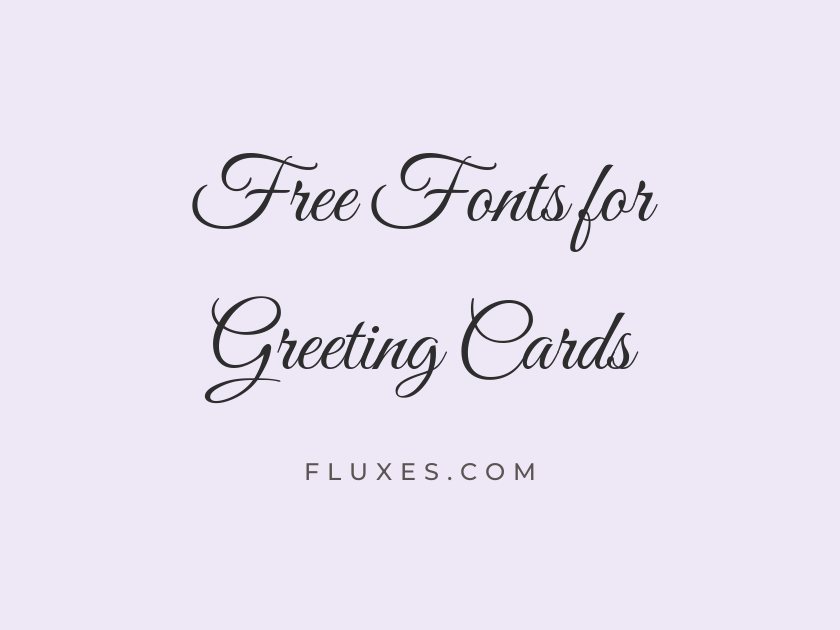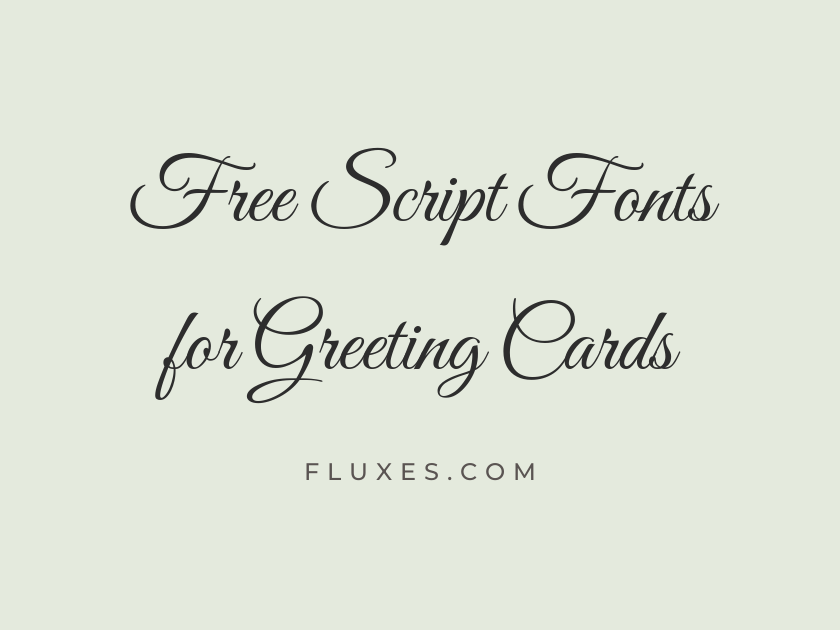
74 Best Free Script Fonts for Greeting Cards
Nothing softens a printed card like a script that looks written rather than typed. The right free script font can turn a birthday note, a holiday greeting, or a simple thank-you into something that feels personal, warm, and a little bit ceremonial, and Google Fonts now hosts an enormous range of calligraphy, brush, and handwriting styles that cost nothing to use commercially. Because greeting cards live and die on tone, the trick is matching the loop and slant of a script to the occasion: formal and flowing for weddings and sympathy notes, bouncy and casual for birthdays, tidy and legible for everyday notes tucked into an envelope.
The selections that follow cover that full range, from copperplate-inspired calligraphy to loose ballpoint scrawl, so you can find a free script font that fits the specific card you are designing rather than settling for whatever looks vaguely “handwritten.”
1. Great Vibes
Great Vibes is the font most people picture when they hear “elegant script.” Its long entry strokes and generous swashes give it a formal, invitation-ready feel that suits anniversaries, weddings, and heartfelt sympathy cards equally well.
Because the letterforms are so ornate, it reads best at larger display sizes; save it for a headline sentiment and let a simpler font carry the message below.
2. Alex Brush
Alex Brush has the fluid, single-stroke look of a fountain pen signature, with just enough weight variation to feel authentically handwritten rather than digitally traced. It pairs nicely with a clean sans-serif for the inside message, letting the script do the emotional heavy lifting on the cover.
3. Allura
Allura leans lighter and more delicate than many formal scripts, with thin connecting strokes that give it an airy, romantic quality. It suits engagement announcements and bridal shower invitations as readily as greeting cards.
4. Parisienne
There is a soft, rounded charm to Parisienne that feels less stiff than traditional copperplate scripts. The letters lean gently and stay fairly upright, so it holds up well even in smaller print runs like gift tags or envelope liners.
5. Pinyon Script
Pinyon Script is dramatic in the best way, with tall ascenders and deep descenders that add real presence to a cover line. Use it sparingly, since its flourishes want room to breathe.
6. Tangerine
Few free scripts feel as refined as Tangerine. Its narrow, tightly spaced letters give it a vintage engraved quality that suits formal stationery, though its delicacy means it can disappear at small sizes or in a heavy color contrast.
7. Petit Formal Script
Compact and upright, Petit Formal Script trades dramatic flourishes for legibility, making it one of the more practical formal scripts on this list. It works well for closing lines and signatures where clarity still matters.
8. Mrs Saint Delafield
Mrs Saint Delafield looks genuinely handwritten, loose and a little imperfect in a way that feels personal rather than polished. It is a strong choice for a card meant to read like a note from a friend, not a printed product.
9. Mrs Sheppards
Mrs Sheppards
Rounder and friendlier than its cousin Mrs Saint Delafield, Mrs Sheppards keeps the handwritten looseness but adds a bit more bounce, suiting casual thank-you cards and baby announcements.
10. Herr Von Muellerhoff
Herr Von Muellerhoff brings old-world elegance with heavy, confident strokes that read almost like a wax-sealed letter. It is a good match for winter holiday cards and formal invitations that want a European, storybook feel.
11. Italianno
Italianno’s long, sweeping baseline connections give it a graceful, unhurried rhythm. It reads as gentle and comforting, which makes it well suited to sympathy cards and quiet expressions of gratitude.
12. Meddon
Meddon keeps its curls modest and its baseline steady, so it stays legible even when set smaller than most display scripts. Consider it when a card needs a script feel without sacrificing readability for older recipients.
13. Rouge Script
Rouge Script has a lively, slightly playful lean that keeps it from feeling too serious, making it a versatile middle ground between formal calligraphy and casual handwriting.
14. Marck Script
Marck Script reads like a fast, confident signature, with rounded terminals that soften its energy. It sits comfortably on baby shower and new-parent cards where warmth matters more than formality.
15. Sacramento
For all-caps headlines, choose a script designed with capitals in mind, such as Great Vibes or Pinyon Script, rather than forcing a lowercase-heavy face into uppercase.
With this many free, high-quality options available through Google Fonts, there is little reason to default to the same handful of scripts seen on every other card in the shop. Download a few candidates, set them against your actual card copy, and let the occasion guide which loop, slant, and weight feels right.